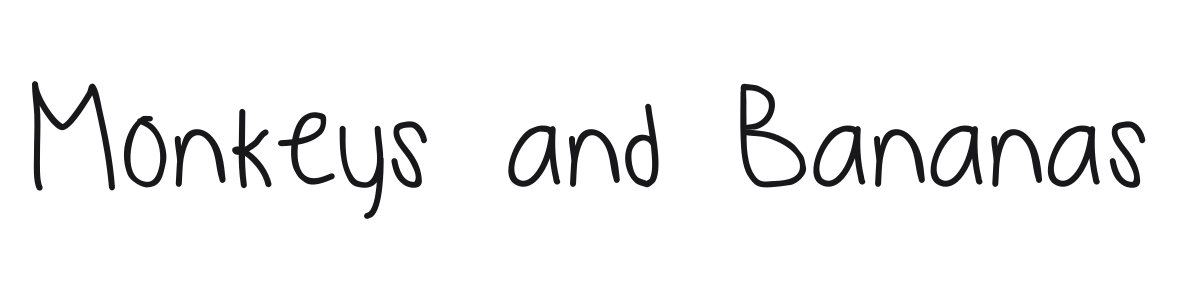
Monkeys and Bananas
Monkeys and Bananas is a thin, casual handwritten face from Limitless Company with the loose, uneven letterforms of a kid writing with a pencil. The strokes are light and wobbly in a way that feels genuinely childlike rather than stylized, giving it a friendly, unpretentious warmth. Works naturally for children's books, greeting cards, informal invitations, or anywhere you want type that doesn't take itself seriously at all.